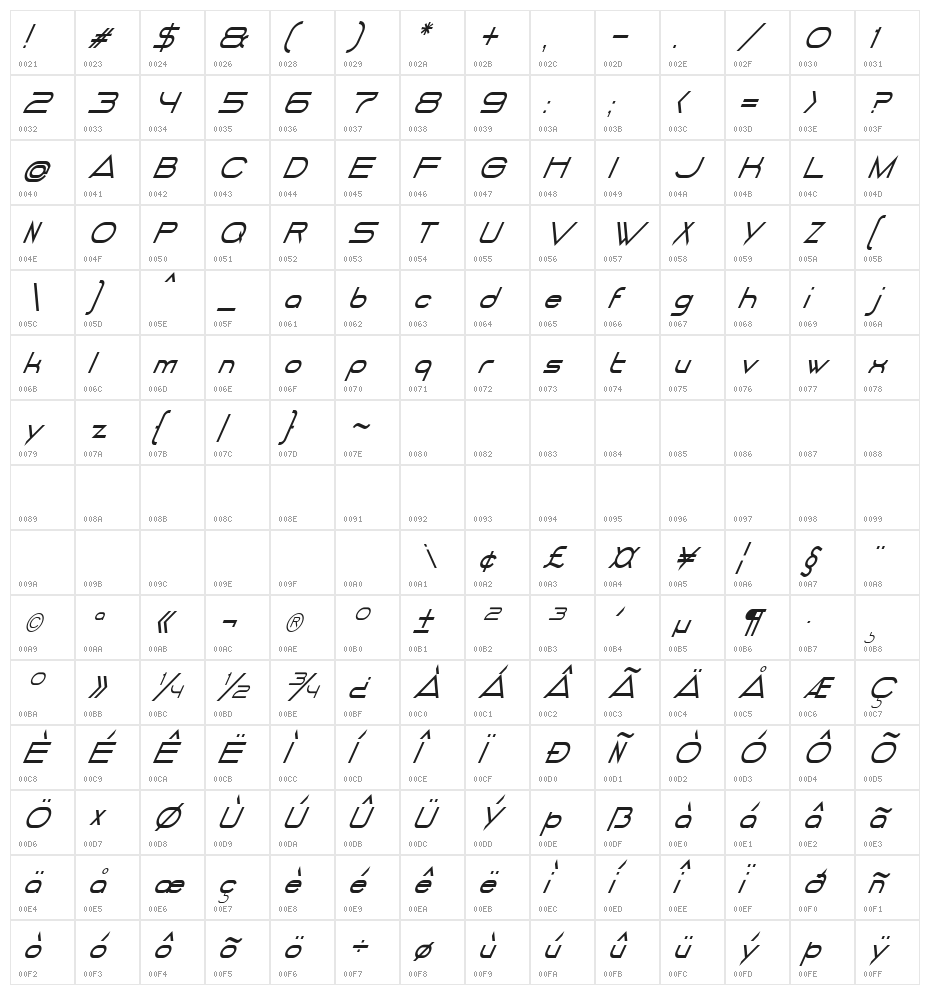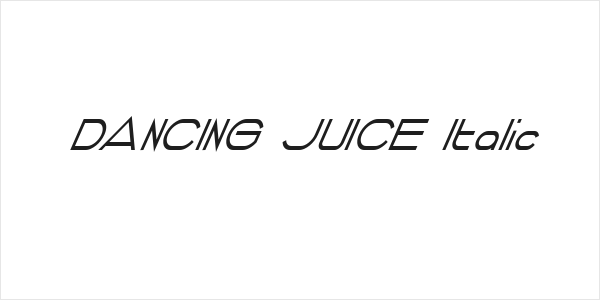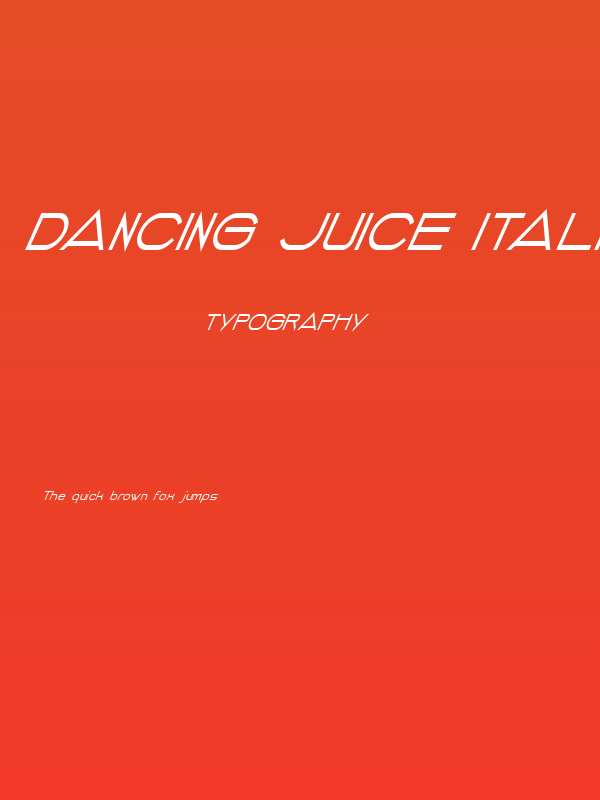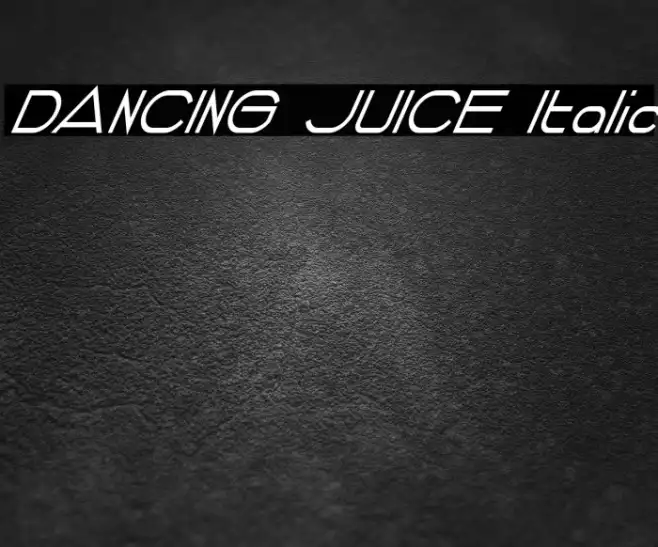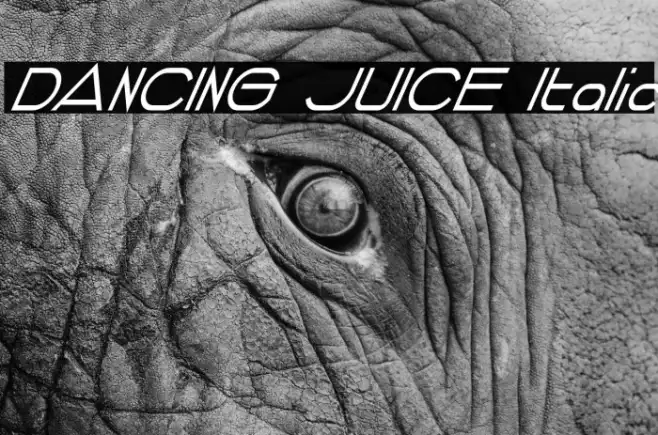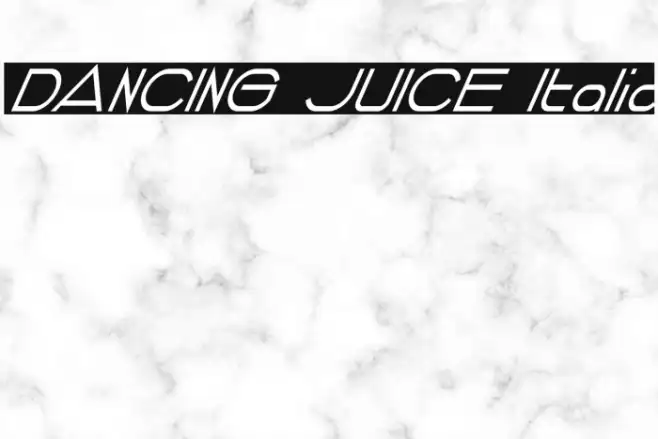
DANCING JUICE Italic Font
DANCING JUICE Italic Description
This font features a sleek, italicized design with a modern and dynamic appearance. The characters are slightly slanted, giving a sense of motion and fluidity. The uppercase and lowercase letters maintain a consistent style, with sharp angles and clean lines that enhance readability. The numerals are distinct and align well with the overall aesthetic, while the special characters complement the set with similar angular features. The font's design is both stylish and functional, making it suitable for various creative applications.
| Proposed Projects | Ideal for branding, advertising, and editorial design projects that require a modern and energetic feel. |